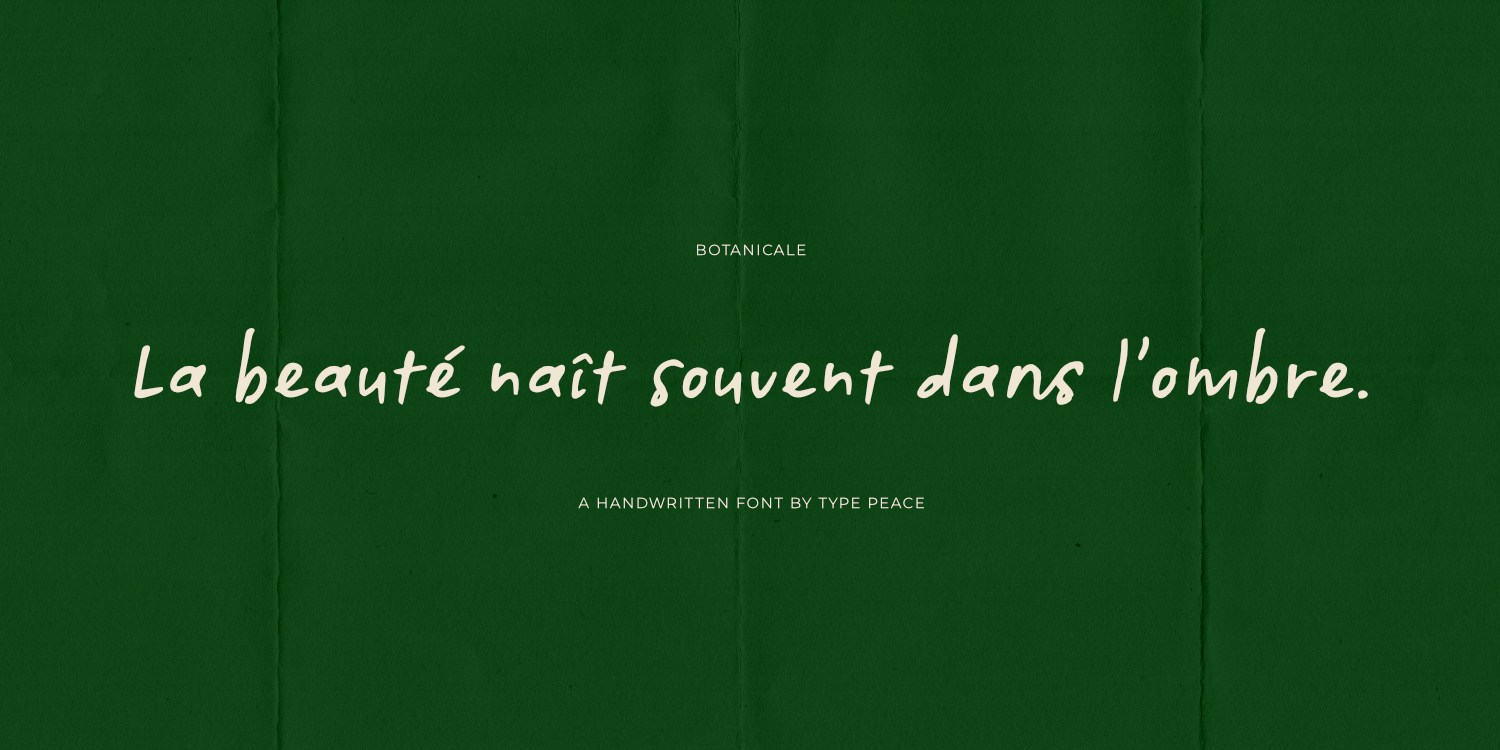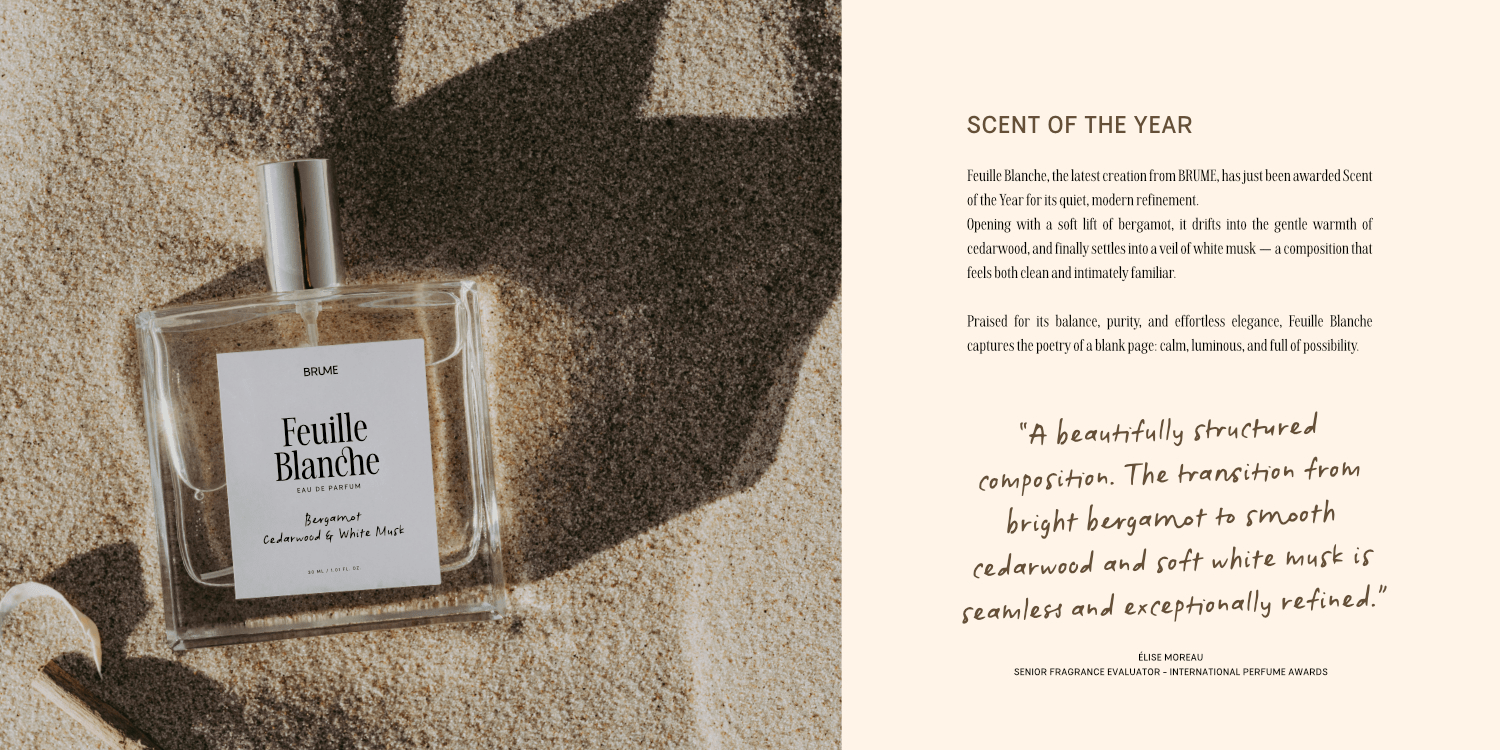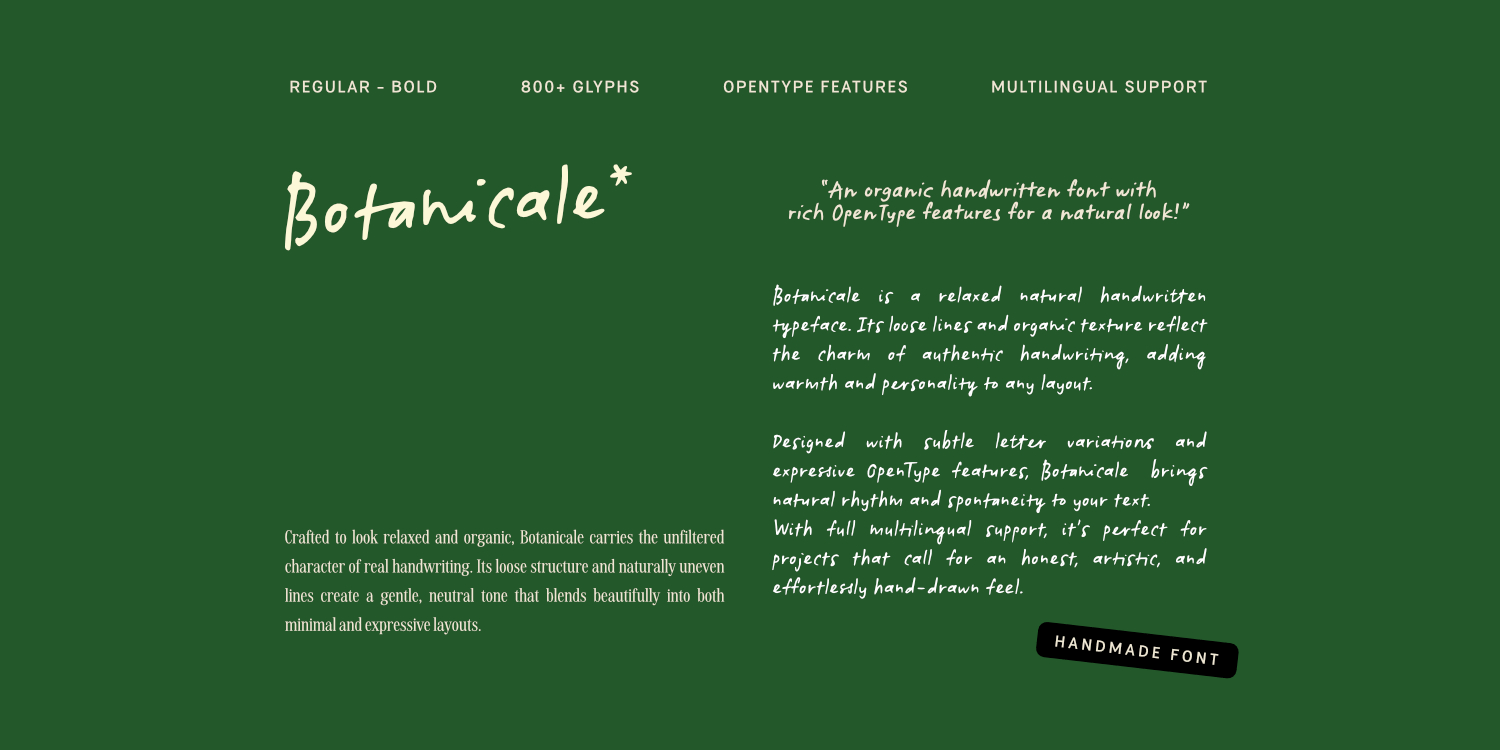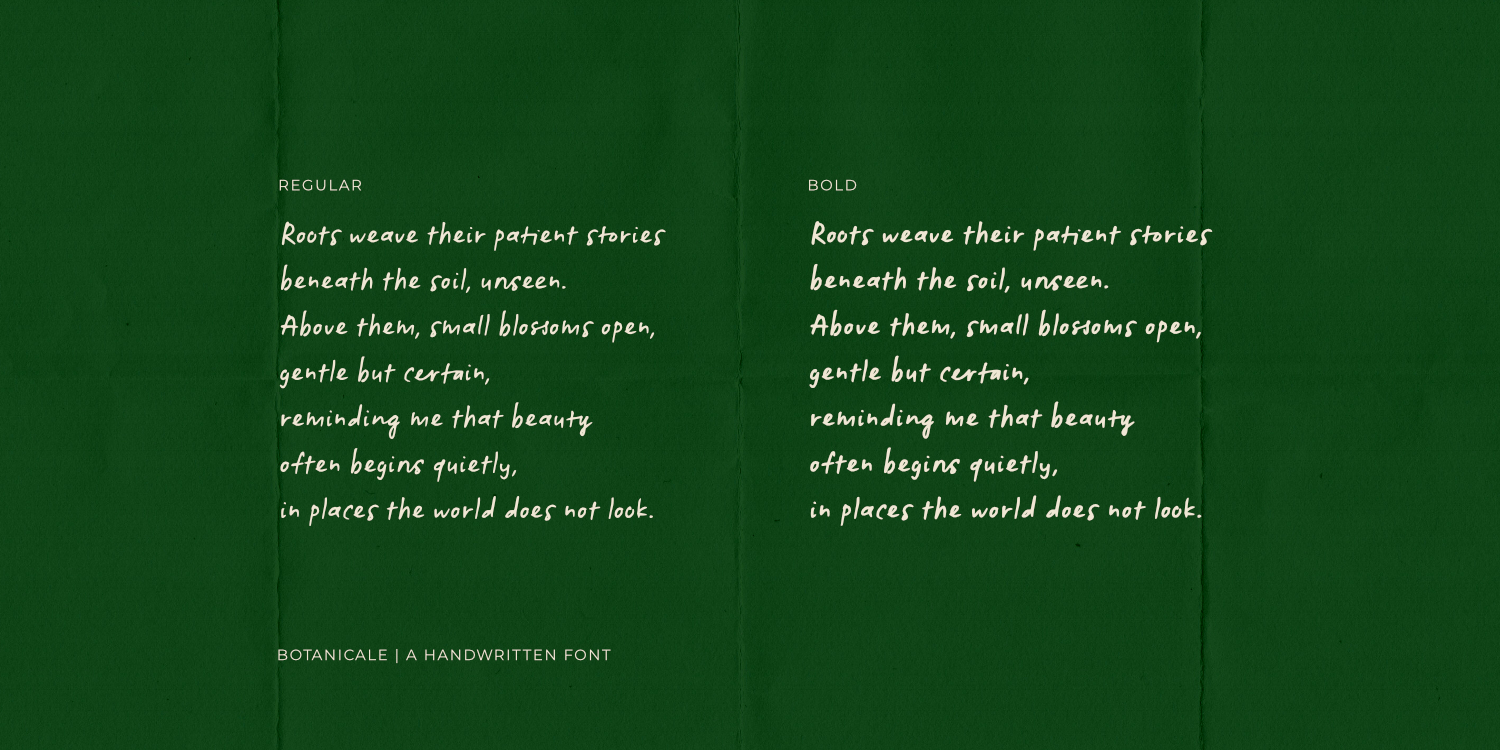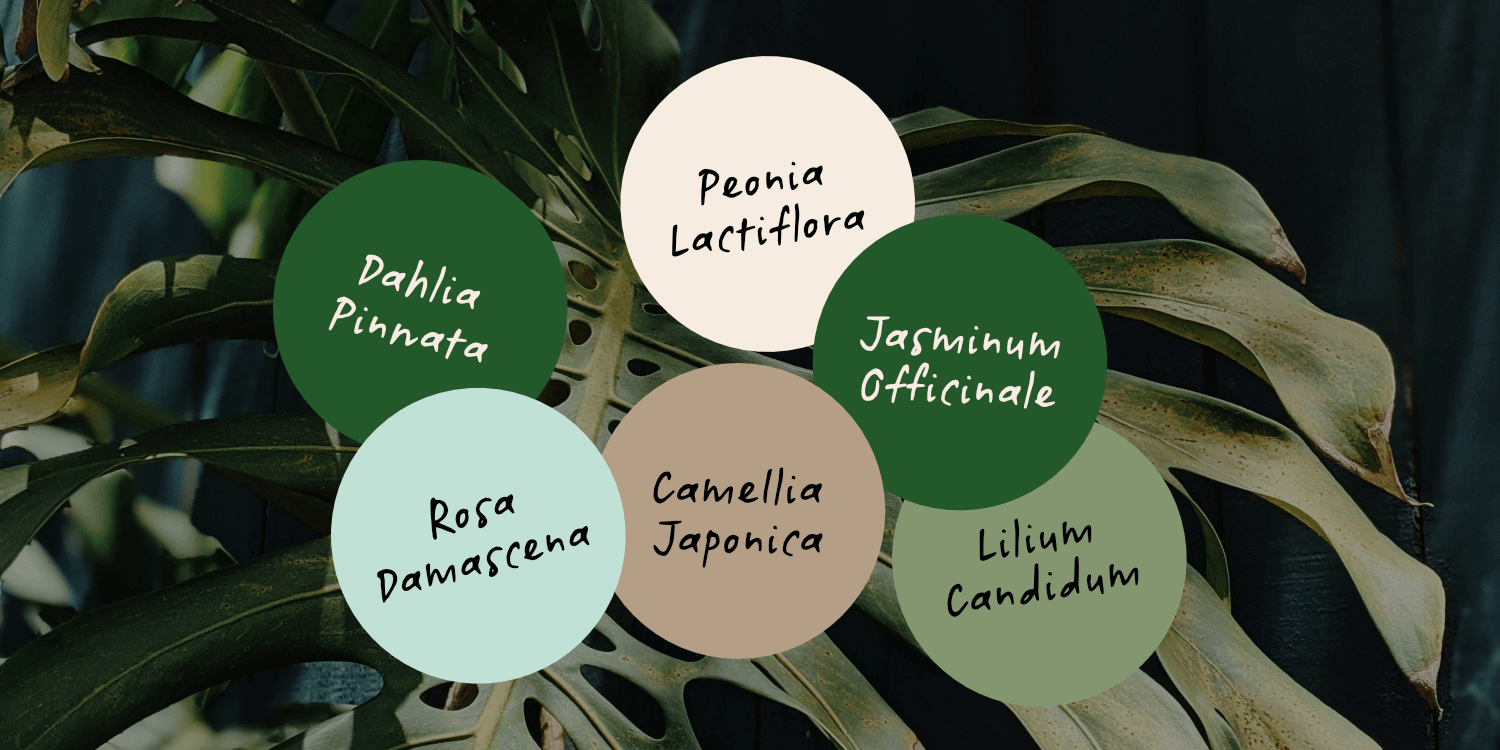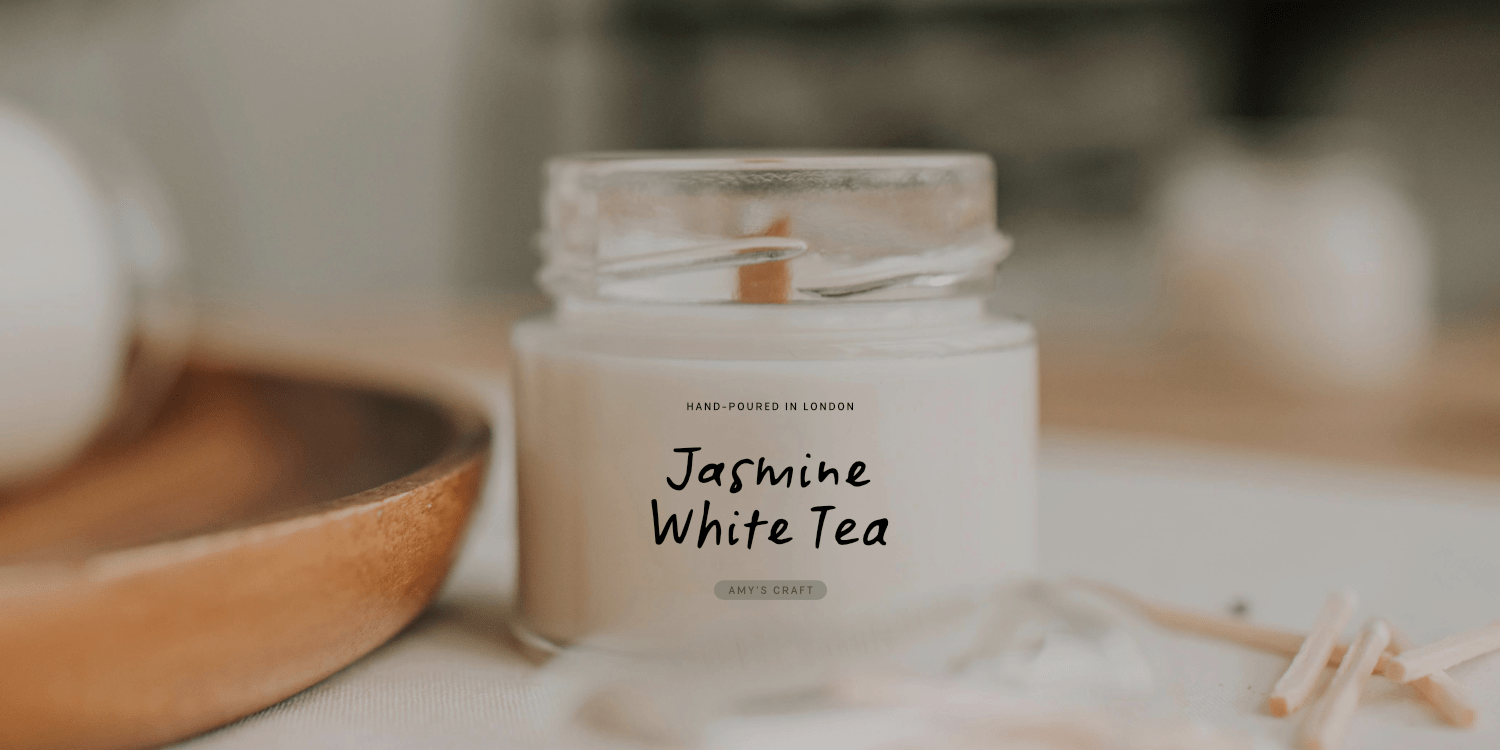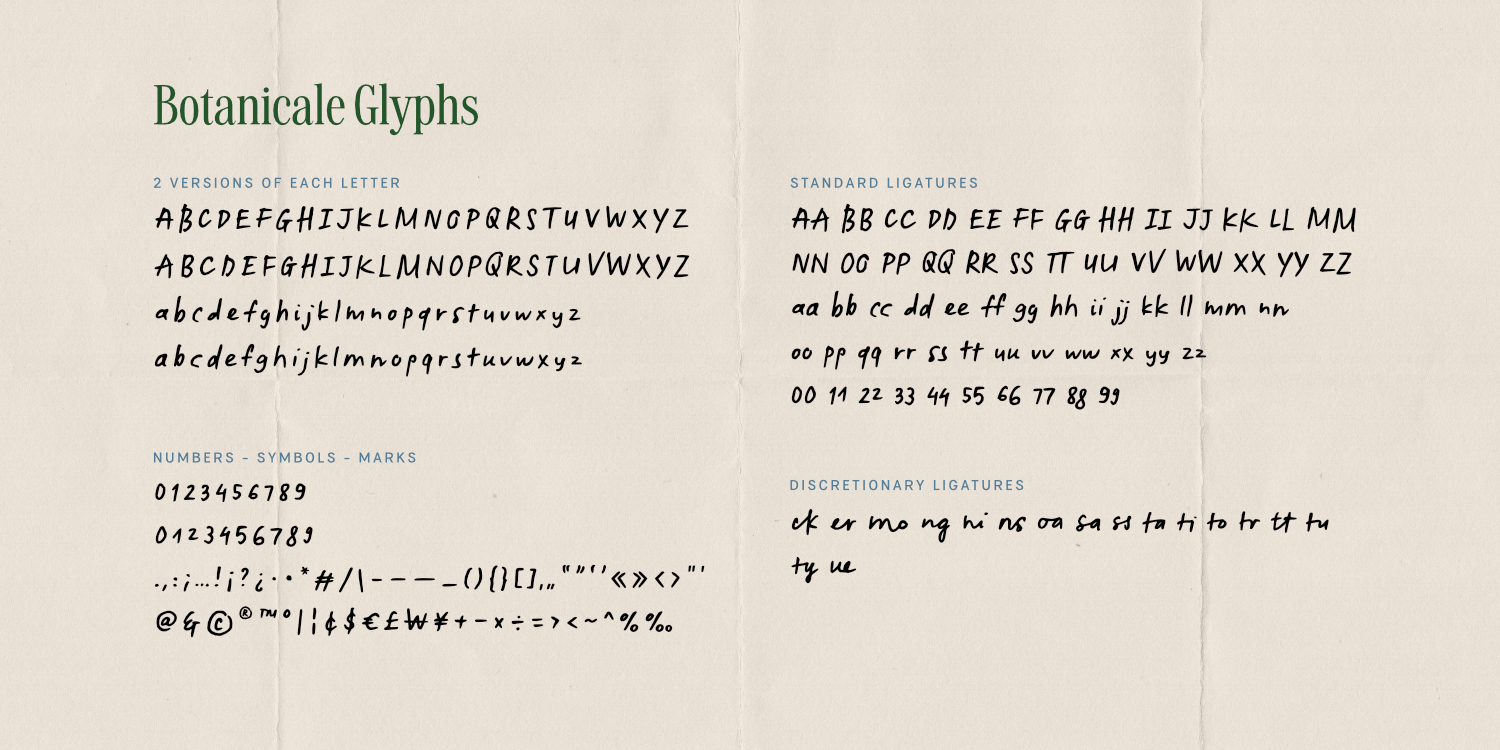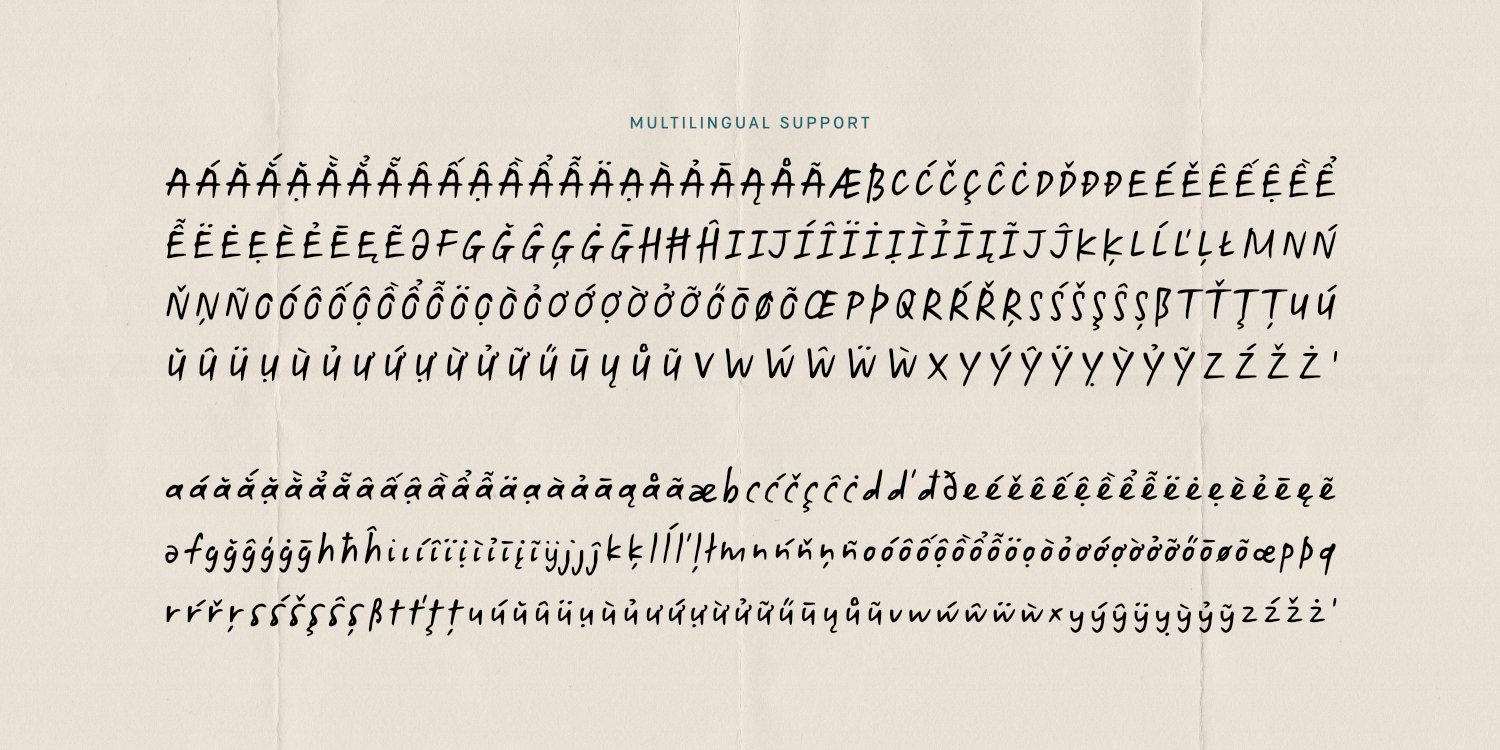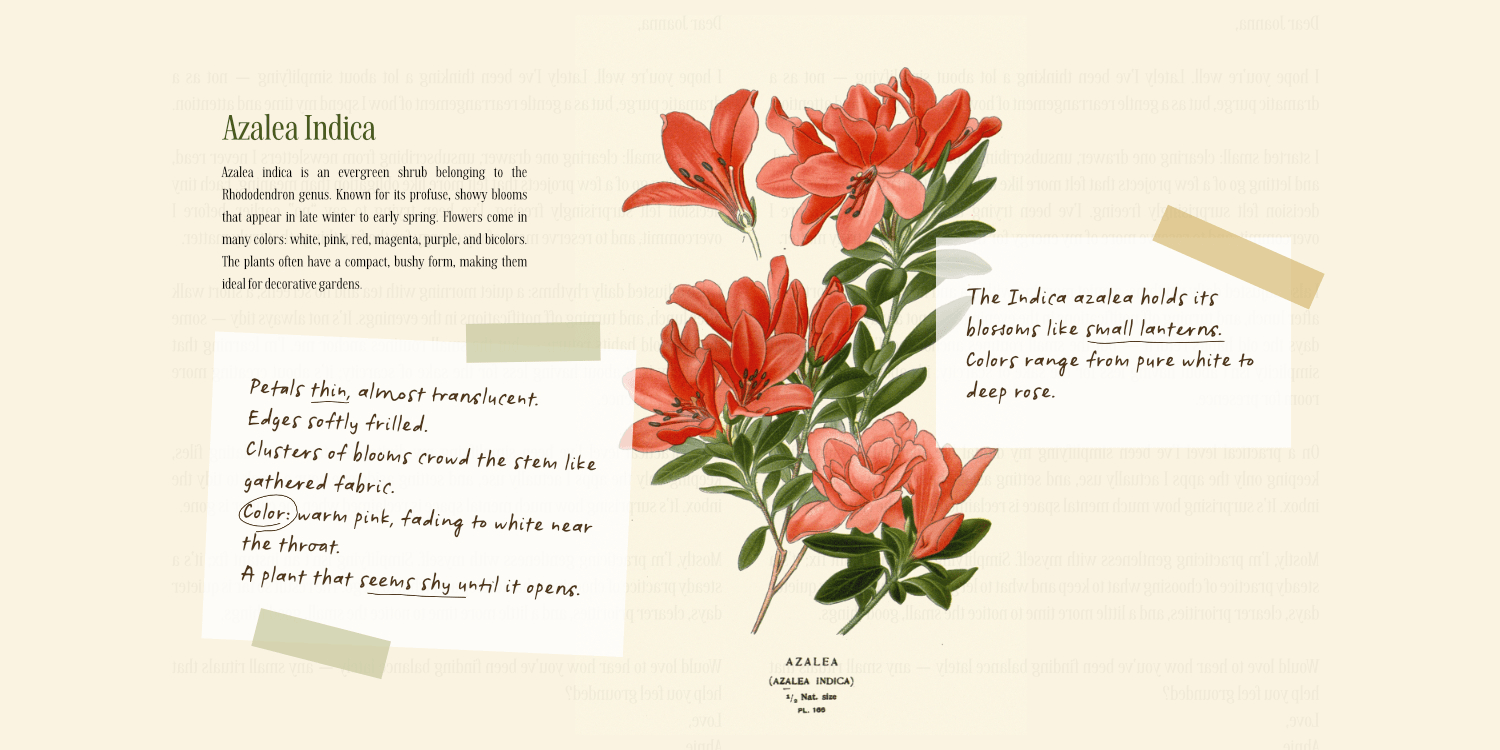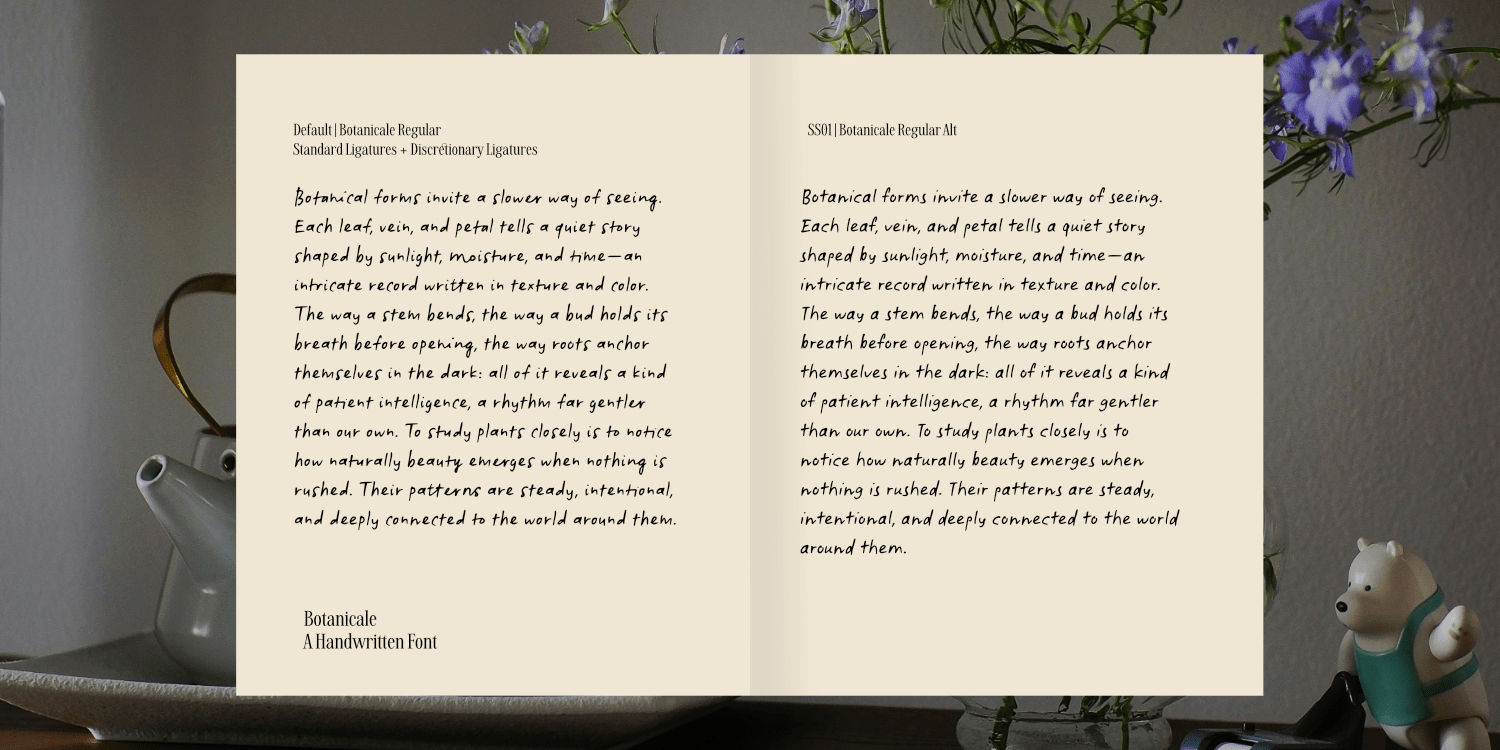
Botanicale
Font Family by type peace
Crafted to look relaxed and organic, Botanicale carries the unfiltered character of real handwriting. Its loose lines and organic texture reflect the charm of authentic handwriting, adding warmth and personality to any layout.
Designed with subtle letter variations and expressive OpenType features along with multilingual support, it’s perfect for projects that call for an honest, artistic, and effortlessly hand-drawn feel.
Features:
• 2 styles: Regular (default set) and Alt (ss01)
• 2 weights: Regular & Bold
• 2 versions of each letter and number
• Includes marks and symbols
• Multilingual support - includes over 800 glyphs
• OpenType features: Standard Ligatures, Discretionary Ligatures, Stylistic Sets, Stylistic Alternates
The font automatically replaces two identical adjacent letters with an alternate version to create a more natural handwritten look. If this feature isn't applied automatically, enable the OTF Standard Ligatures option.
Mix & match letter sets and explore all the OpenType features this font offers to create dynamic letter combinations!
Script: Latin
Supported Languages: English, Western European, Central European, South Eastern European, Oceanian, Vietnamese, South American, Esperanto